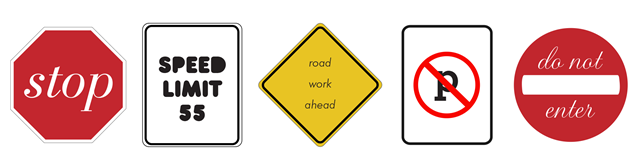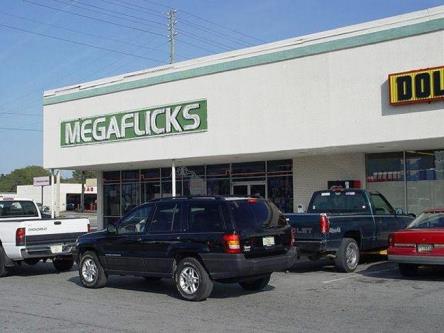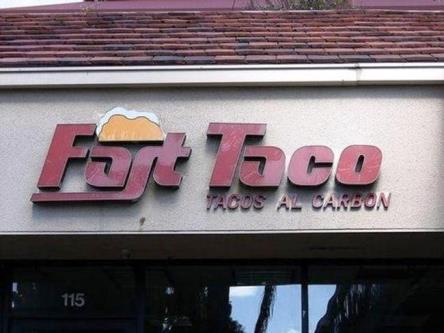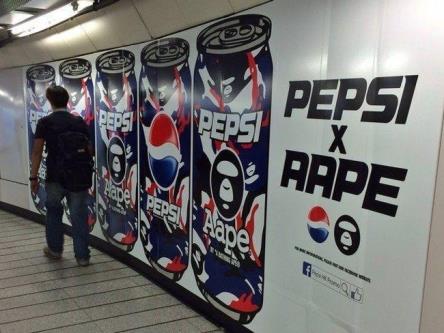
The Importance of Fonts in Signs and Graphics
When we have a conversation, we use more than words to communicate. Body language, inflection of voice, eye contact, volume and gestures all play a part in the way we express ourselves to get a message across. This same concept applies with fonts or typeface choices.
Typefaces can project a wide range of emotions through their shape and style, as well as how they are used. Scientists theorize that one’s eye moves along the shape of a line or letterform creating a physical experience similar to how body language is used when communicating. The way your handwriting displays your mood or emotion, so can type. For example, when writing quickly, your italicized text expresses motion. Heavy writing or typefaces are more associated with boldness or anger.
Choosing a font is similar to making a first impression. Be thoughtful about what you want to convey to your reader. Typeface influences the audience perception.
Author and Graphic Designer Sarah Hyndman explains, “Scientists have discovered that our brains can mistake the ease of the reading process for the ease of the subject we’re reading about. For example, psychologists at the University of Michigan found that college students thought an exercise routine would be easier and that they would be more likely to incorporate it into their daily routine when they were shown instructions in a highly legible typeface.” Hyndman also shares that high school students in Ohio received higher marks when they read text in an unfamiliar font (according to neuropsychologist Dr. David Lewis). This unfamiliar font slowed their reading, which improved comprehension vs. reading the words quickly.
When considering fonts, focus on who’s reading your work and who you want to resonate with. Want your brand to be perceived as friendly and childlike? A typeface with curves and personality may be best. Want to be perceived as modern and professional? A classic, clean typeface would be more appropriate.
Placement and final layout of your typeface is crucial. The following examples are either funny or frightening depending on your outlook:
The MegaFlicks logo on a store front
The Fort Taco logo on a store front
A poster highlights the Pepsi and AAPE collaboration
Choosing a typeface for your signage is an important element of your branding and visual communications strategy. These examples of everyday signs have been changed with different fonts. Now, they are more difficult to read at-a-glance, hindering their effectiveness.
Examples of street signs with different fonts
What style of font or typeface does your organization use? Is it consistent with your brand image? Something so seemingly small as a choice in font can make a big visual impact. Keep these tips in mind when putting your brand’s visual communications strategy together.